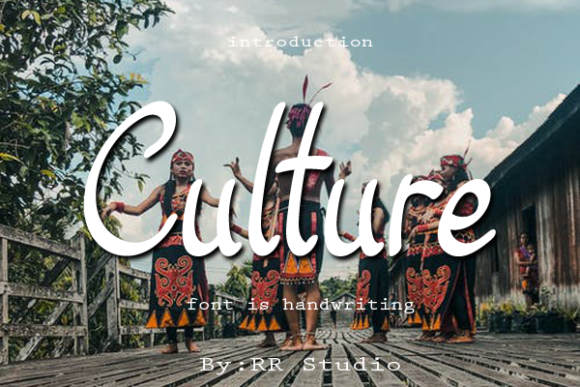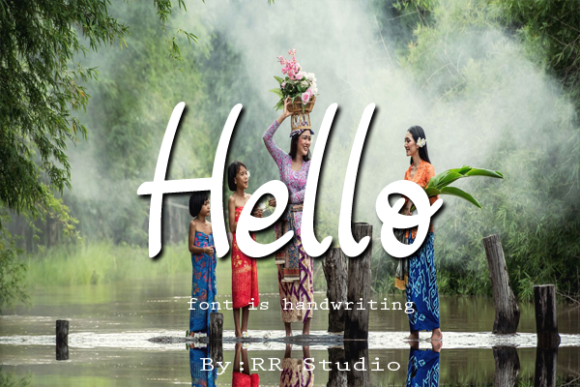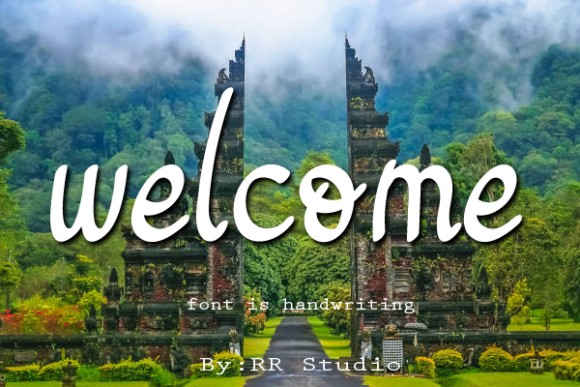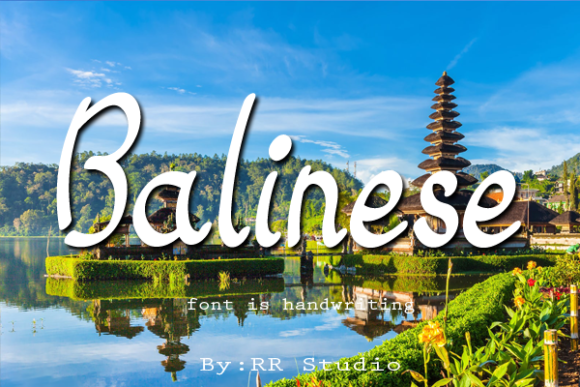
About Culture Font
Culture is a stylish and adaptable handwritten font. It looks stunning on wedding invitations, thank you cards, quotes, greeting cards, logos, business cards and every other design which needs a handwritten touch.